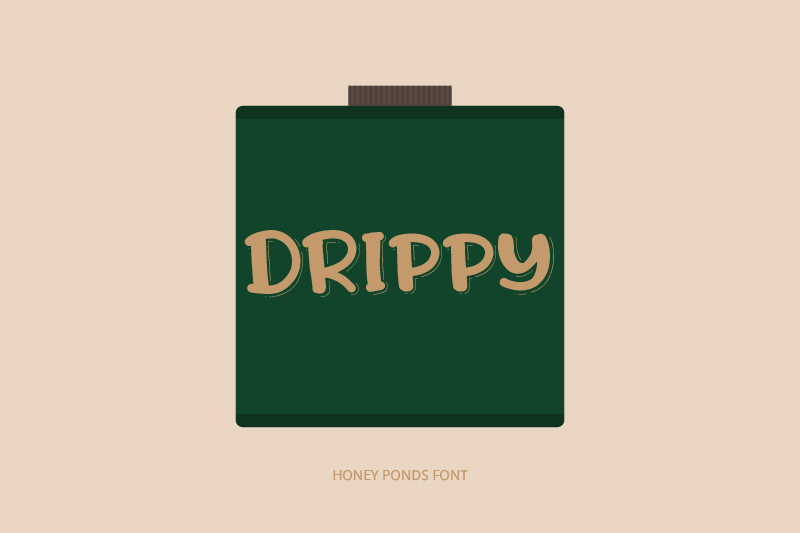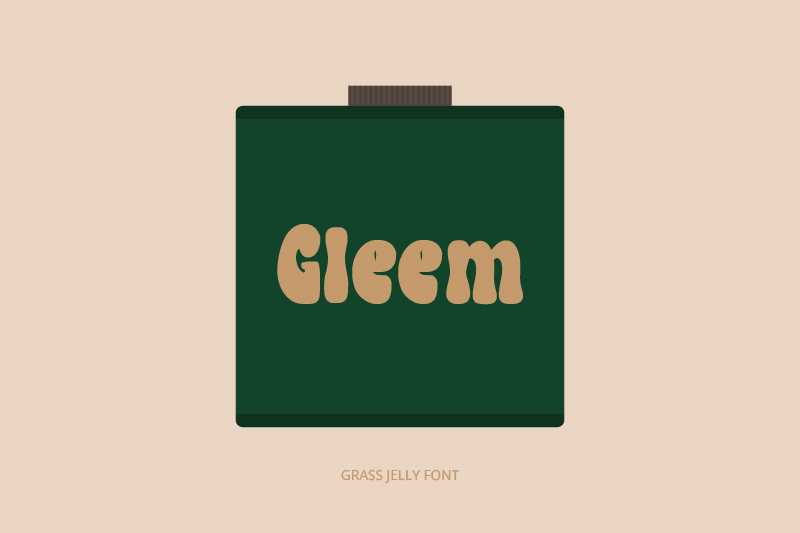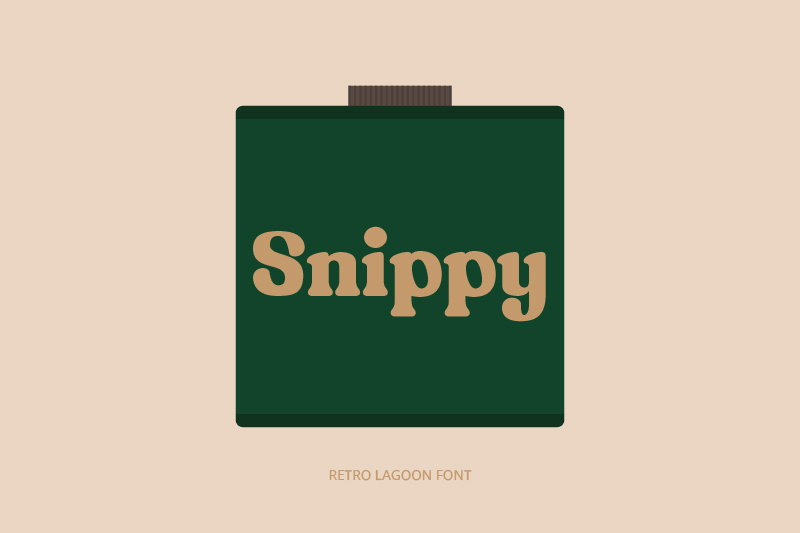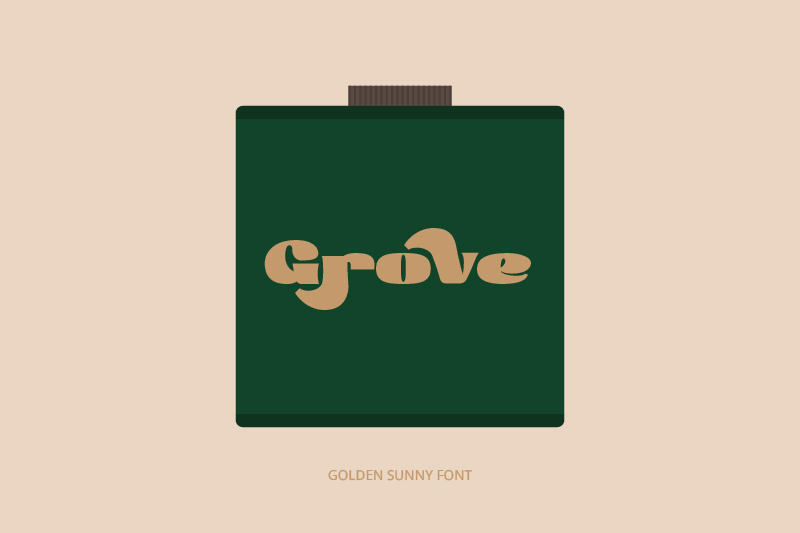
15 Best Fonts for Essential Oil Packaging: Playful & Adorable Styles
On a skincare shelf full of similar products, only a few truly stand out in packaging. For example, olive and essential oils are attractive not only because of their bottle’s color or shape but also because of their fonts, which exude a soft, natural feel at first glance. That’s why typography isn’t just a visual decoration; it’s a key element in building trust and shaping consumer perception.
Because of that, recent brands have chosen adorable, playful fonts for olive oil-based skincare products. The curved, friendly letter character creates a warm, safe impression, making the brand feel more human and easier to remember. Therefore, the proper typography strengthens brands’ stories and gentleness naturally without excessive words.
This article is for skincare brand owners, packaging designers, and content creators seeking adorable, unique, yet professional fonts suitable for essential oil packaging design. The following recommendations will help in finding a typography style that suits the brand’s character.
The Emotional Strength Behind Playful Fonts for Essential Oil Packaging
Subtle, rounded letterform fonts express strong emotional signals of playfulness, friendliness, and comfort. For consumers to view essential and olive oil skincare products as natural, calming, and appropriate for everyday use, this perception is essential. Therefore, playful fonts are an important element in essential oil packaging, helping to build a brand story without excessive words.
Best Playful and Adorable Picks of Fonts for Essential Oil Packaging
Honey Ponds
Honey Ponds present soft, curved, and organic letter characters that exude a strong natural feel. The letter’s detail has a wide curve with a smooth tip, making it stand out and giving a friendly yet premium look. As one of the fonts for essential oil packaging, this font helps build a warm, earthy, and calming identity. Therefore, this font is perfect for the label of aromatherapy products, natural oils, and branding that seek an authentic and trustworthy look.
Grass Jelly
Grass Jelly, with its bold, gently curved, and elastic letterforms, instantly conveys a playful yet natural feel. Its dense character with smooth, rounded corners creates a strong yet friendly feel. Grass Jelly’s proportion maintains readability and creates a fresh, warm visual. Thus, this font is perfect for herbal product packaging and other natural products that seek a fresh, memorable appearance.
Retro Lagoon
Inspired by a warm retro style, Retro Lagoon features bold typefaces with sturdy shapes and smooth curves that feel elegant. Its thick yet smooth serif details create a distinct visual that gives a classic touch without looking stiff. Moreover, this combination creates an earthy and premium identity that feels authentic as one of the fonts for essential oil packaging selection. Furthermore, this font is ideal for herbal product labels, aromatherapy, and natural packaging that seek a warm, professional appearance.
Golden Sunny
The next pick from the list of fonts for essential oil packaging is Golden Sunny with bold, smooth curves, an organic feel, and an iconic, graceful swash. Its visual provides a relaxed, yet authentic, earthy nuance. Therefore, it is suitable for herbal products, aromatherapy, and packaging that seek a natural impression. The dense stroke detail with smooth curves in this font creates a warm impression. That’s why the combination of shapes creates a friendly, professional, and memorable design.
Festive Dessert
Despite being named after a dessert, this font is ideal for use as one of the fonts for essential oil packaging. This font’s lovely, delicate, and appealing appearance makes it ideal for gift packaging, skincare, makeup, and body care products. Furthermore, the bold, rounded, and smooth letters convey a friendly yet graceful impression. Additionally, its combination of bold, solid letter structure and smooth curves creates a warm, feminine, and luxurious feel, making olive oil packaging appear more attractive and memorable.
Fresh Tasty
Fresh Tasty brings fresh energy through the dynamic and friendly letterforms. As one of the fonts for essential oil packaging, it emphasizes the letter’s feature with its rounded curves and bold, smooth terminals. Moreover, the serif detail in its bold, curved font gives an organic and natural feel, despite the stable letter proportion. Thus, these font characteristics create a premium and calming impression. Therefore, it is perfect for essential oil product packaging that emphasizes natural freshness and skin-revitalizing benefits.
Giant Pride
Carrying a bold and confident impression, Giant Pride features large, solid block letters with sharp angles and consistent thickness. The prominent feature lies in the counter letters. These letters tend to be small and close together, and their bold shape creates a balanced visual rhythm. Thus, this font is perfect for use on bottle labels, brand logos, aroma variant titles, premium box packaging, seal stickers, and supporting branding materials. Therefore, Giant Pride’s strong visual character makes the design look bold, premium, and easily recognized on the product shelf.
Conclusion
In the world of olive oil and essential oil skincare products, packaging is the first visual experience. Adorable, playful fonts can create a strong emotional connection, resulting in a warm, safe, and enjoyable impression. When choosing the proper fonts for essential oil packaging, you are designing a label and building a memorable brand story.
Find the right font for your product’s character, and let your packaging design become the first reason your customers fall in love with your brand!